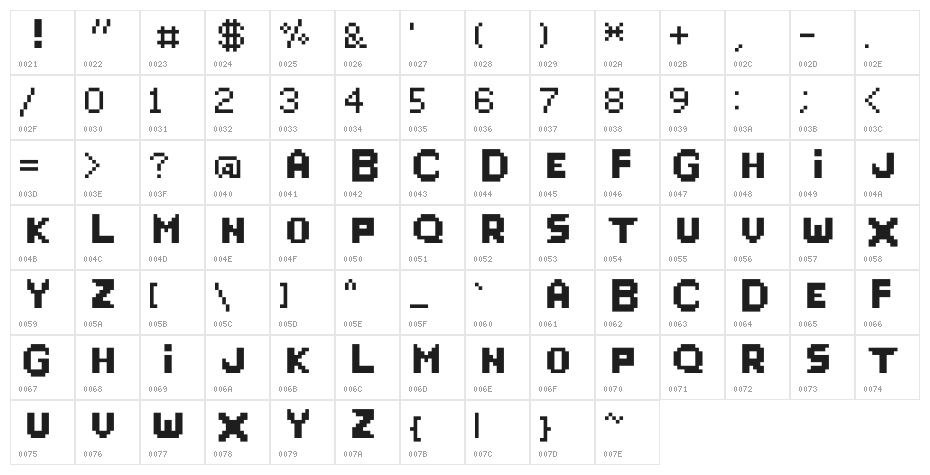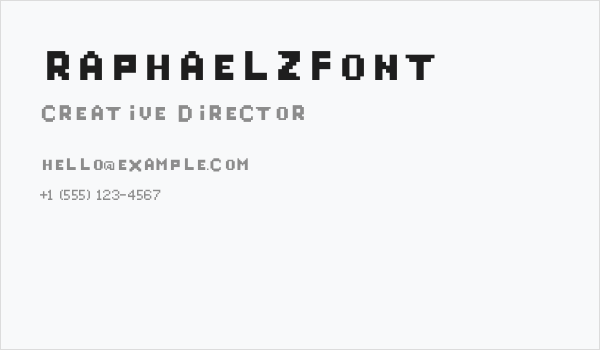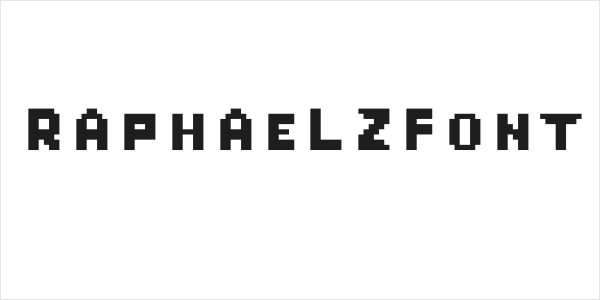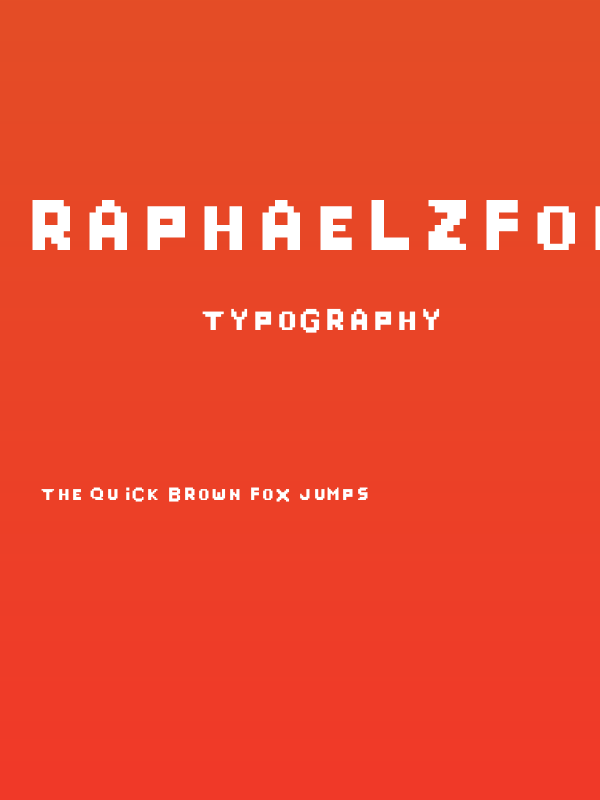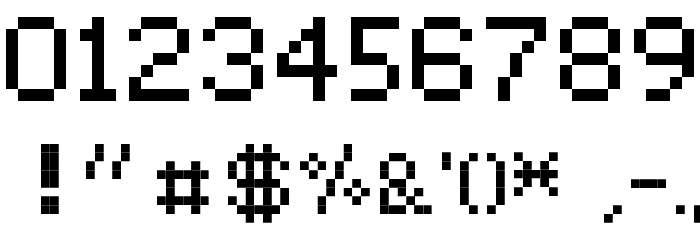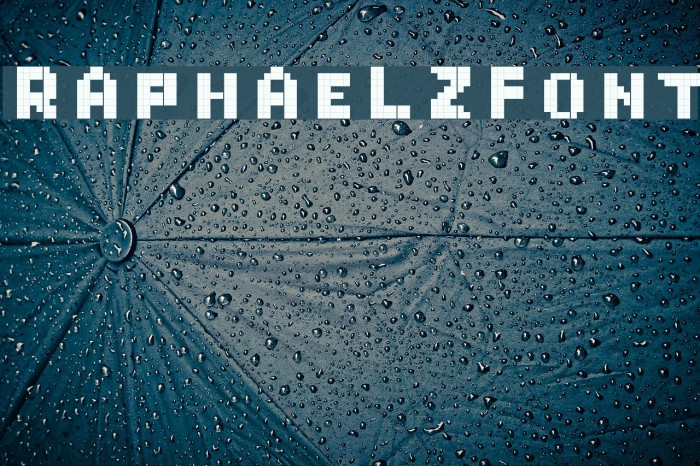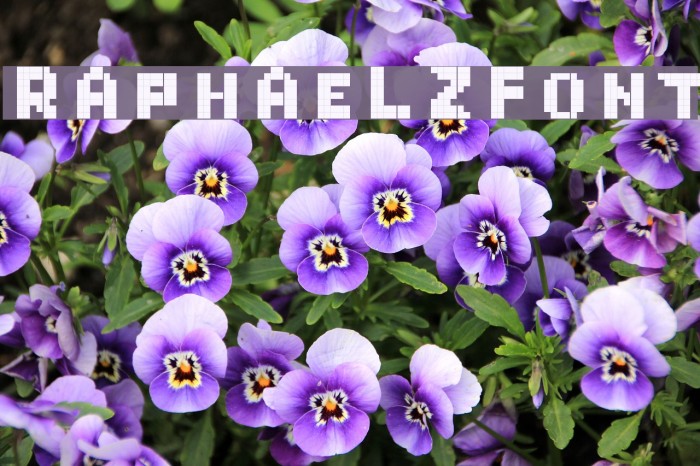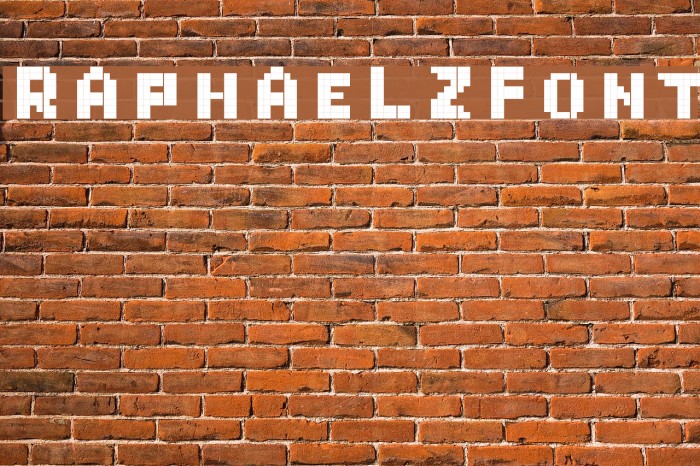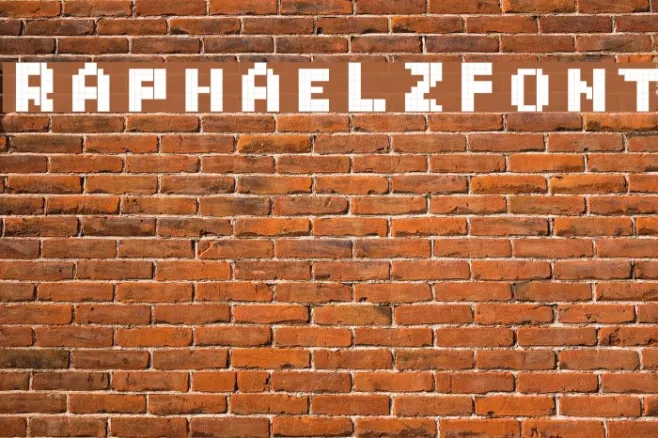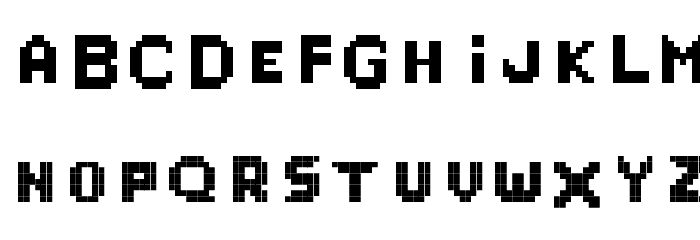
RaphaelZfont Font
RaphaelZfont Description
This font features a pixelated, blocky design reminiscent of early digital displays and retro video games. Each character is composed of a grid-like pattern, giving it a distinctly digital and geometric appearance. The uppercase and lowercase letters maintain a consistent height, while the numbers and special characters follow the same pixelated style. The design is bold and eye-catching, making it suitable for projects that require a nostalgic or tech-inspired aesthetic. The uniformity in character width and height contributes to a cohesive and structured look.
| Proposed Projects | Ideal for video game designs, tech-themed posters, digital art projects, and retro-inspired branding. |